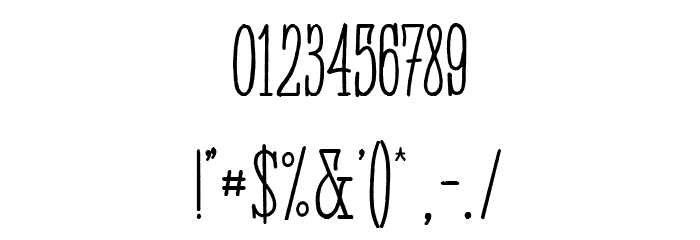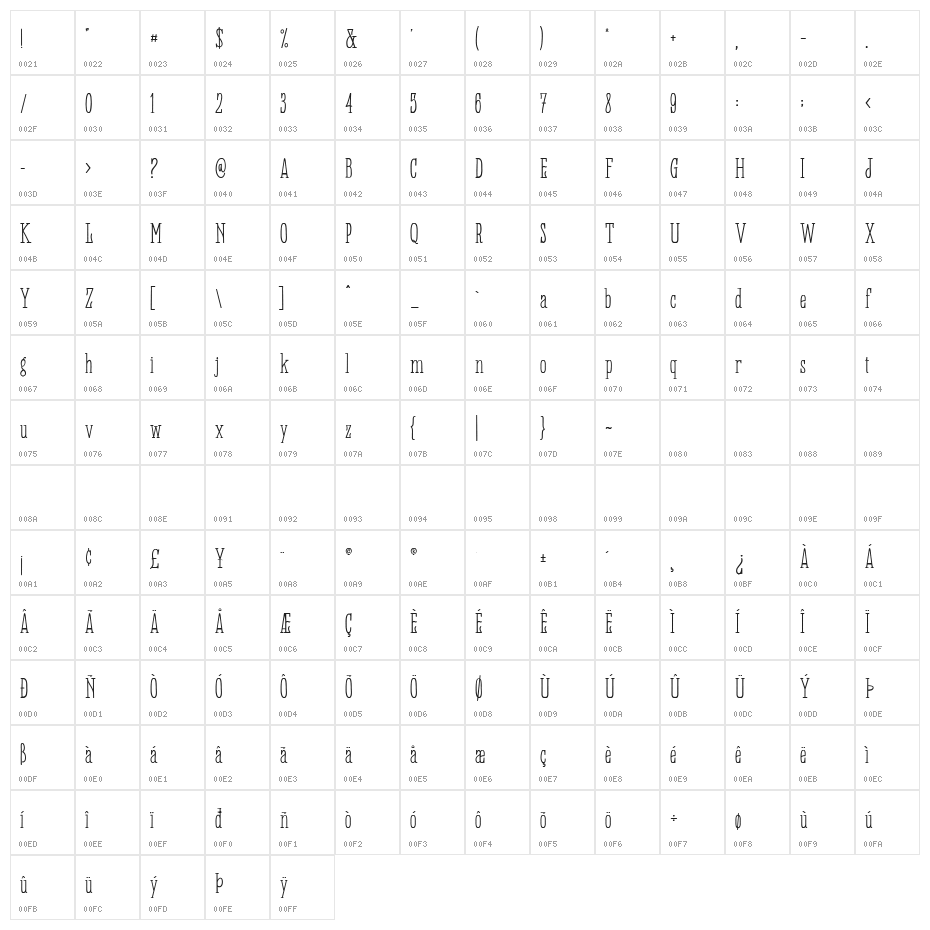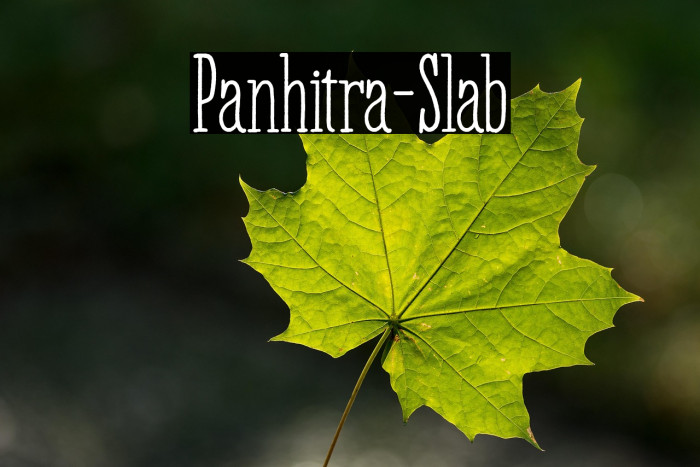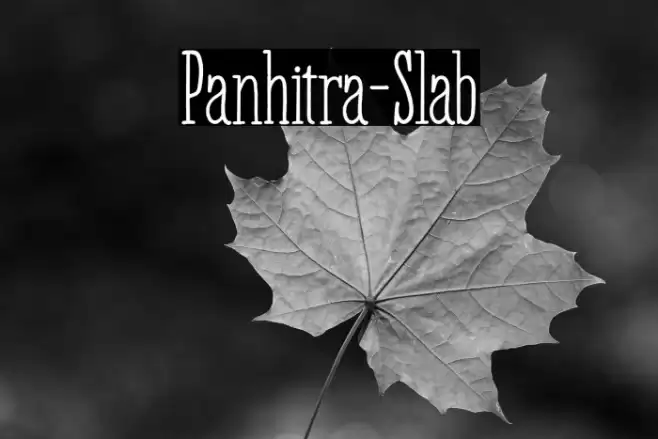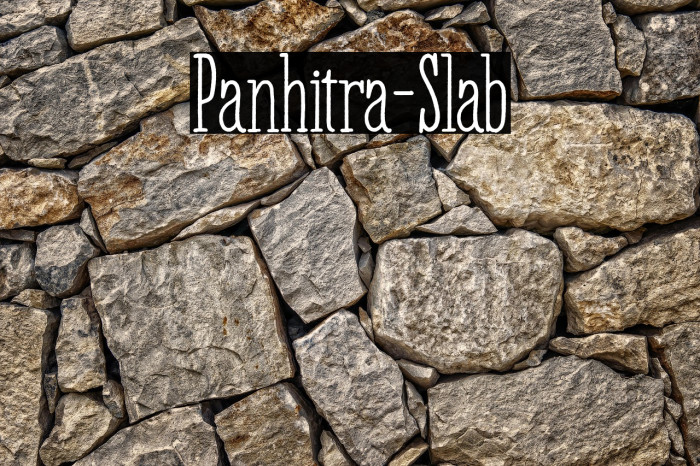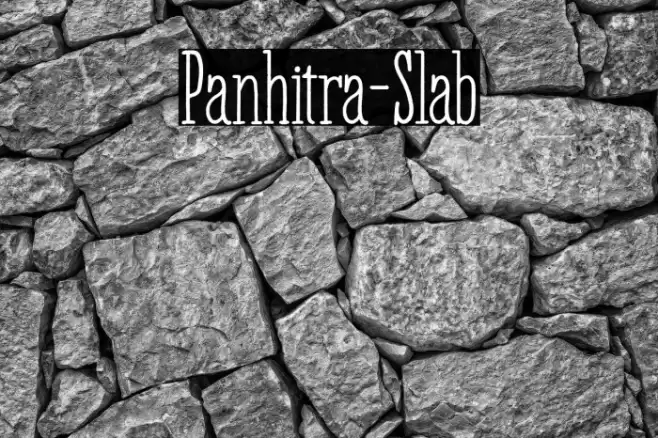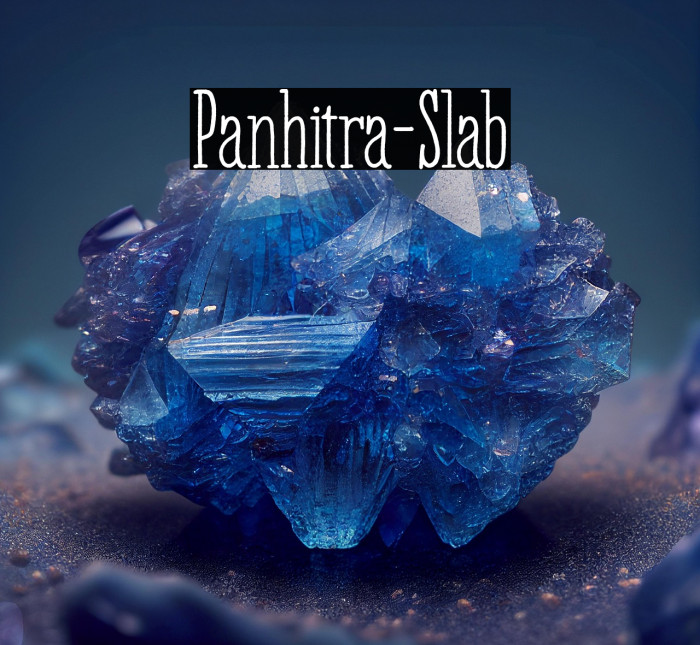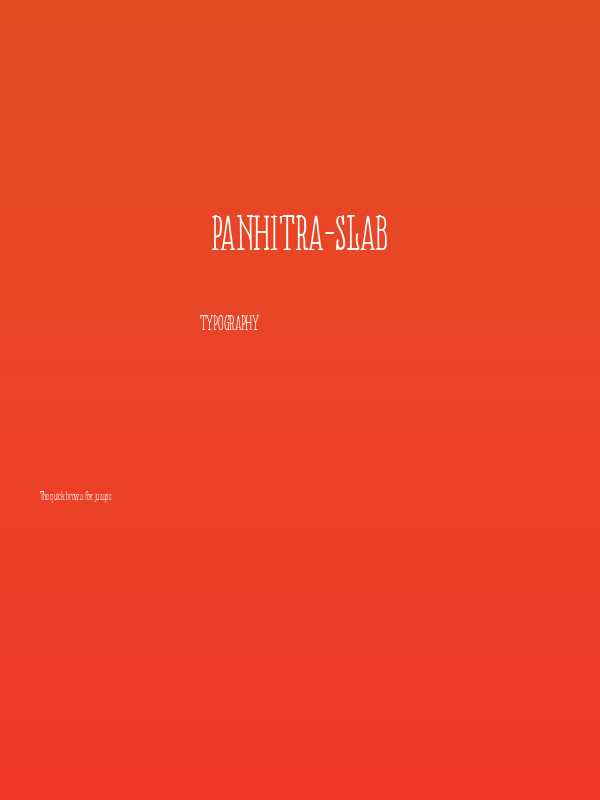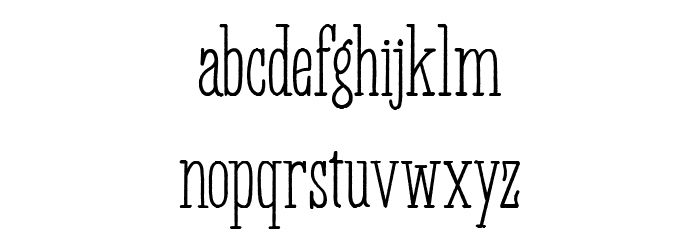
Panhitra-Slab Font
Panhitra-Slab Description
This font exhibits a distinctive slab serif style, characterized by its bold and pronounced serifs that give it a strong and authoritative presence. The uppercase letters are tall and slightly condensed, with a uniform stroke width that conveys a sense of stability and reliability. The lowercase letters maintain a consistent style, with rounded edges that soften the overall appearance. The numerals are clear and legible, making them suitable for various applications. Special characters are well-defined, ensuring versatility in design projects. The font's unique blend of traditional serif elements with a modern twist makes it suitable for a wide range of uses.
| Use Case | Headlines, Logos, Signage |
| Proposed Projects | Ideal for branding, editorial design, signage, and packaging where a strong and reliable typeface is needed. |